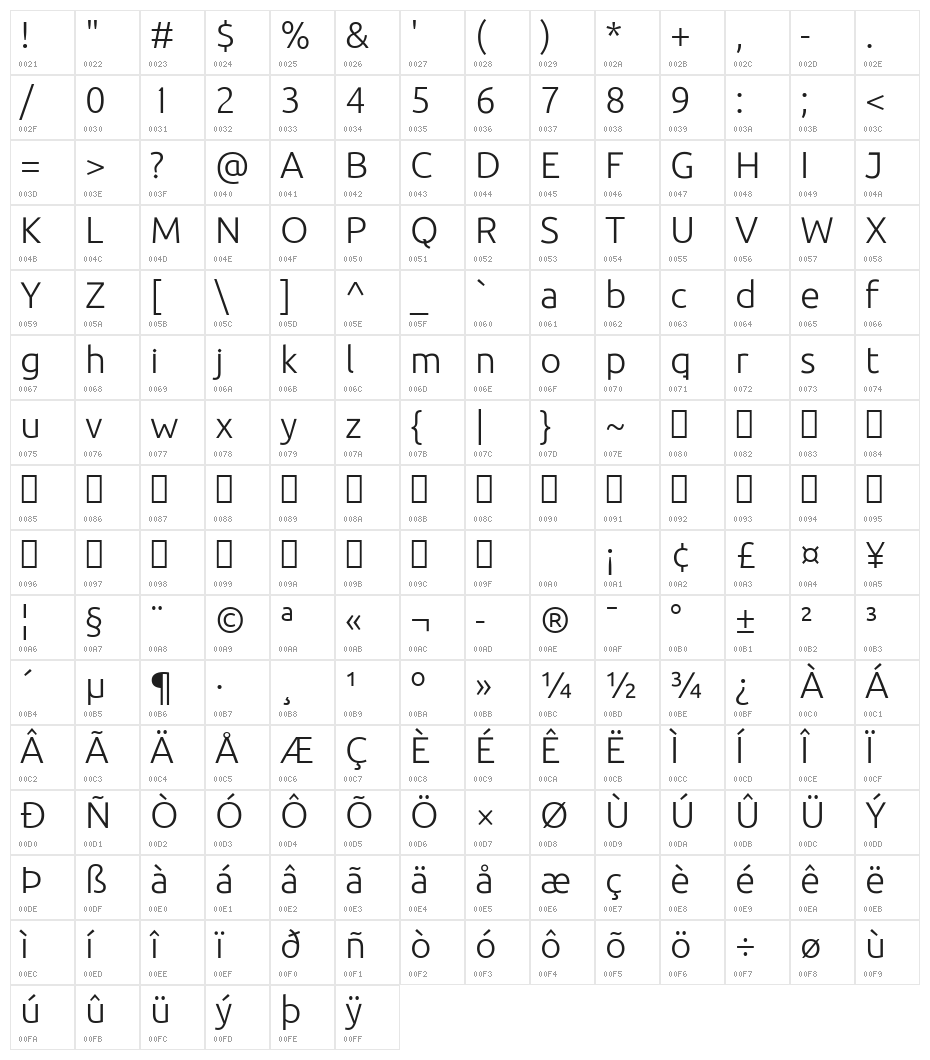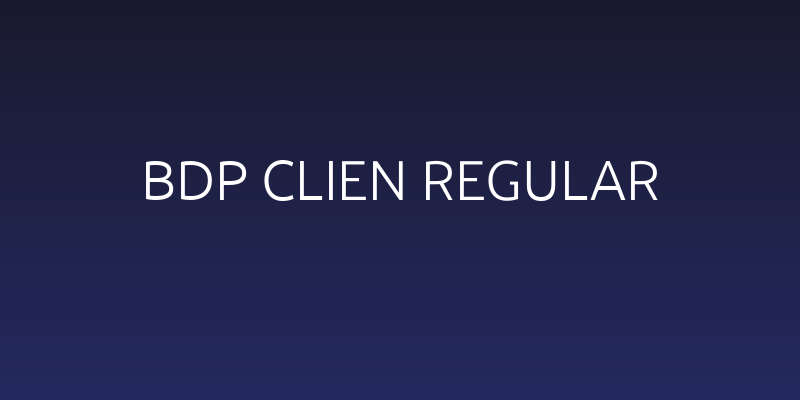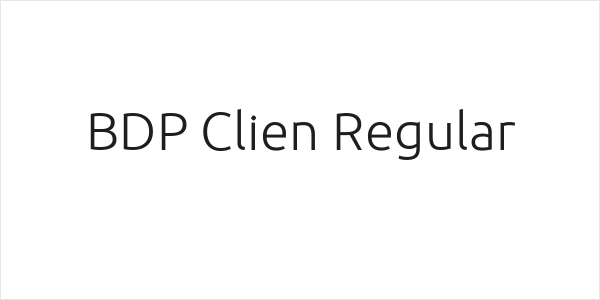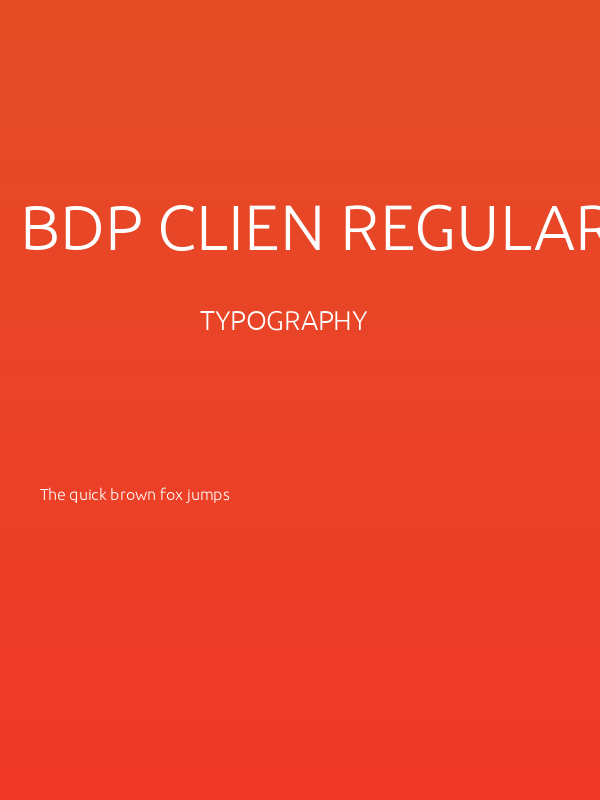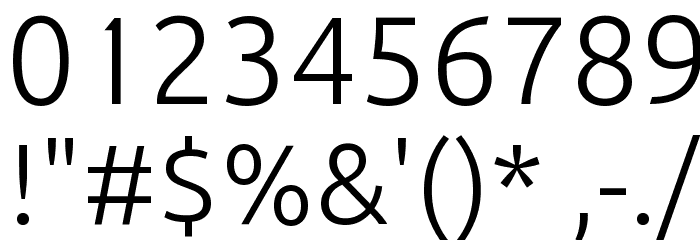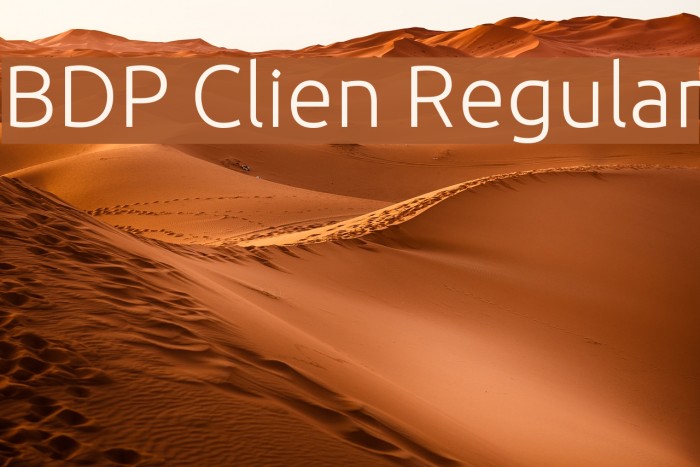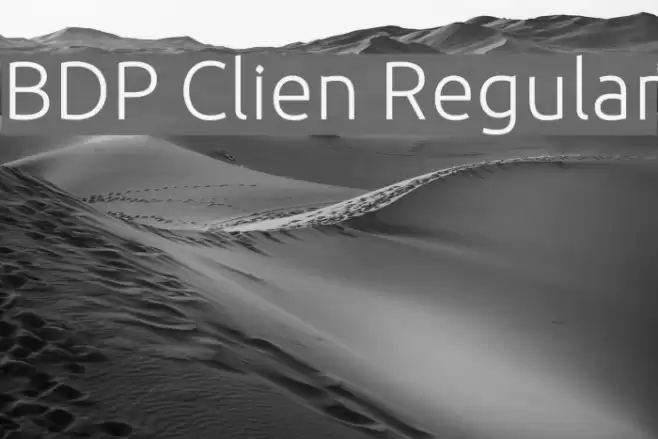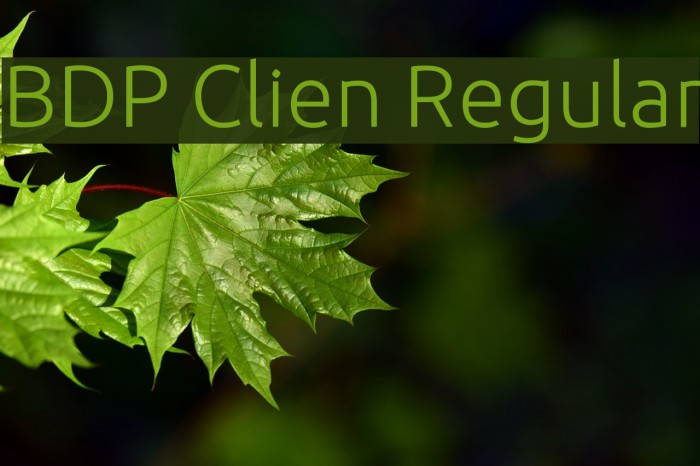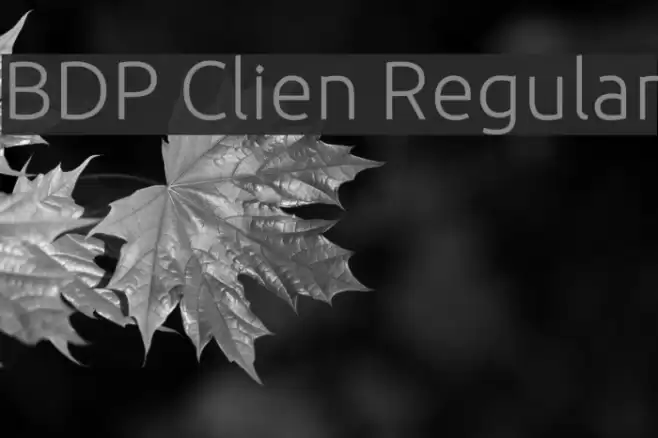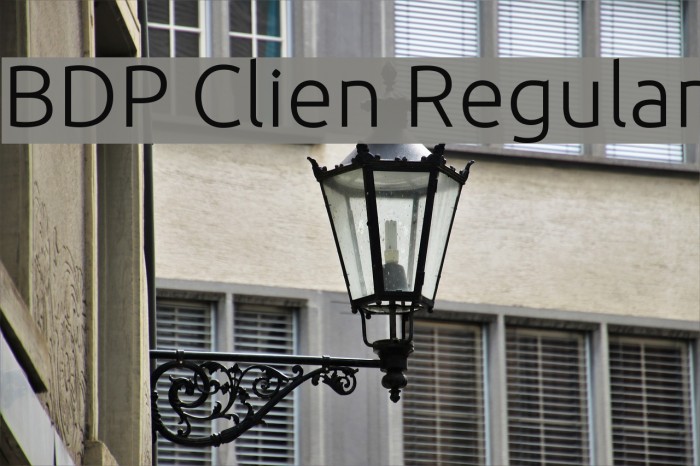
BDP Clien Regular Font
BDP Clien Regular Description
This font features a clean and modern sans-serif design, characterized by its simplicity and readability. The characters are well-proportioned with a consistent stroke width, giving it a uniform appearance. The uppercase letters are bold and assertive, while the lowercase letters maintain a friendly and approachable look. The numerals are clear and distinct, making them easy to read. Special characters are well-integrated, maintaining the overall aesthetic of the font. This font is versatile, suitable for both digital and print media, and can be used in a variety of contexts where clarity and modernity are desired.
| Use Case | Headlines, Body text, Logos |
| Proposed Projects | Ideal for corporate branding, website headers, user interfaces, and editorial design. |